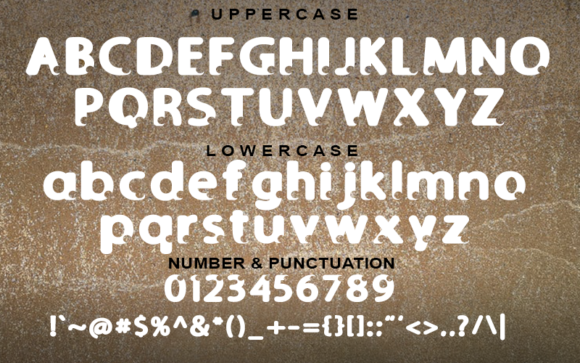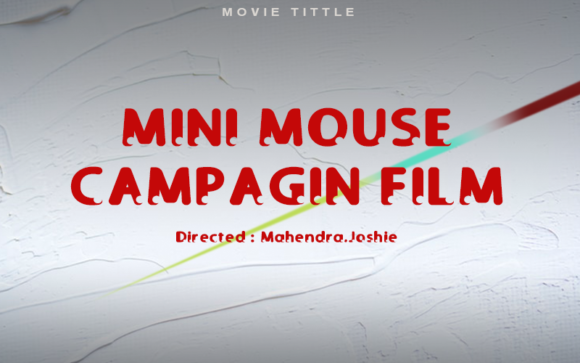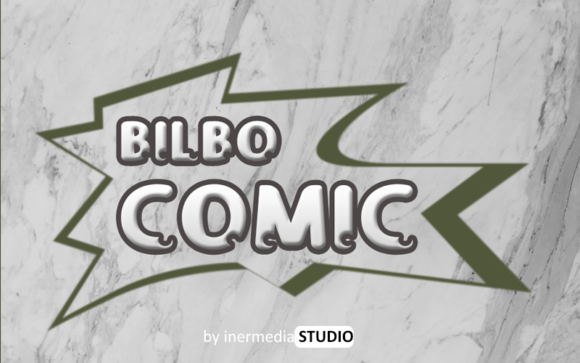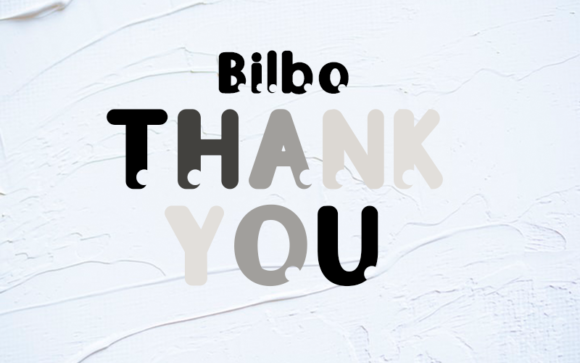
The Magic of Bilbo Cartoon Font: A Design Dream Come True
Do you remember the thrill of discovering a new font that instantly sparks creativity and inspires your next design project? For many designers, that moment is what drives them to keep pushing the boundaries of visual storytelling. And we’re about to introduce you to a font that will become your new go-to companion in the world of design.
Meet the Bilbo Cartoon Font, a playful and charming font that’s designed to bring a smile to your face and a touch of whimsy to your designs. Whether you’re creating logos, branding materials, packaging designs, or anything in between, this font is sure to be a game-changer. Its unique character and versatility make it a valuable asset for designers looking to add some personality to their work.
With the Bilbo Cartoon Font, you’ll be able to create designs that truly stand out from the crowd and leave a lasting impression on your audience. So why settle for a generic font when you can have a masterpiece that’s uniquely yours? Get ready to unleash your creativity with this must-have font!
Bilbo Cartoon Font Key Features
- Unique Characteristics: Whimsical and playful design, featuring rounded edges, friendly curves, and a childlike charm, perfect for creating a cartoonish or humorous atmosphere.
- Font Style: Available in Regular, Italic, Bold, and Bold Italic styles, providing versatility for various design applications.
Bilbo Cartoon Font Review
Bilbo Cartoon Font is an interesting addition to the world of digital typography. Here’s my honest take on this font.
Playful and whimsical feel that’s perfect for cartoons, children’s books, or any project that needs a lighthearted tone.
The font is highly legible, making it easy to read even at smaller font sizes.
The bold and regular weights provide a nice contrast, allowing for creative typography and design possibilities.
The font might not be suitable for professional or formal projects due to its playful and cartoonish nature.
The character set is limited, which may cause issues when using it for languages that require a broader range of characters.
The font’s aesthetic might become repetitive or clichéd if overused, so it’s essential to mix it with other fonts to avoid visual fatigue.
Bilbo Cartoon Font is a delightful addition to any designer’s toolkit. While it may have its limitations, its unique charm and versatility make it a great choice for the right projects. With careful use and a mix of other fonts, Bilbo Cartoon Font can add a touch of whimsy and personality to any design.
The Bilbo Cartoon Font is a playful, whimsical font that is perfect for:
- Children’s book covers and illustrations.
- Cartoon-style posters and advertisements.
- Party invitations and decorations.
- Any design that needs a fun, lighthearted touch.
To get the most out of the Bilbo Cartoon Font, experiment with different font sizes, colors, and combinations to create a unique and eye-catching design.
Q: What font sizes are recommended for using the Bilbo Cartoon Font?
The Bilbo Cartoon Font is designed to be used at a range of font sizes, from 12pt to 48pt. However, for optimal legibility and visual impact, we recommend using the font at sizes between 18pt and 36pt. This will help to ensure that the font is easy to read and visually appealing in your designs.